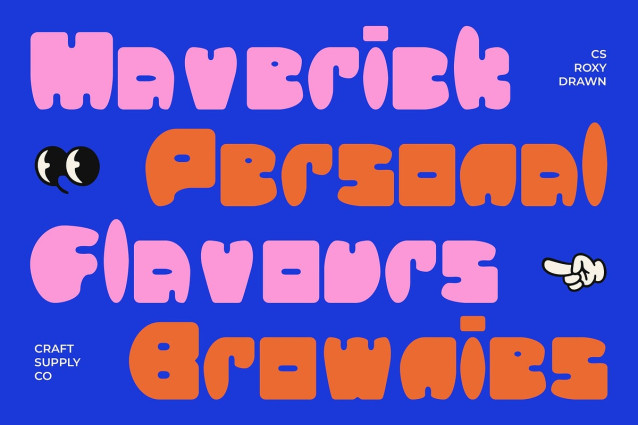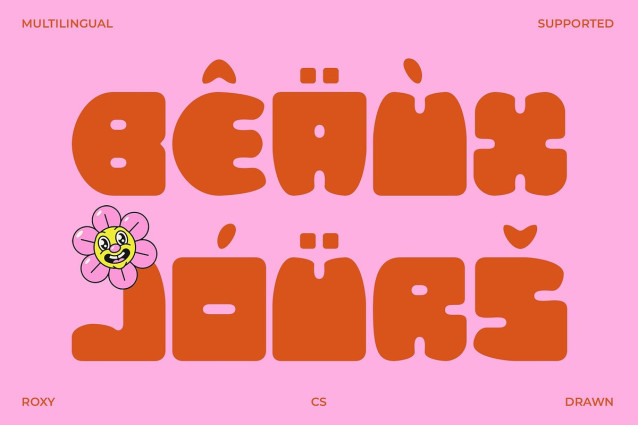
CS Roxy Drawn Font
CS Roxy Drawn Font is a bold display font that grabs attention with its confident, thick strokes and playful shapes. Its strong, impactful presence makes it perfect for designs that want to be noticed instantly, offering a fun and funky vibe that energizes any project.
Handcrafted Drawn Effect for Unique Character This font features a handcrafted drawn effect that gives each letter an organic, textured look. The subtle imperfections and sketchy lines add warmth and personality, making the font feel approachable and artistic. It’s an ideal choice for designs seeking a human touch and creative flair.
Versatile for Eye-Catching and Playful Designs Whether used in branding, posters, packaging, or social media graphics, this cheerful font combines boldness with charm. Its funky, dynamic style is perfect for projects that want to convey energy, fun, and originality, ensuring your message stands out in a crowded visual landscape.
Perfect for Creative, Youthful, and Energetic Projects From playful brand identities and vibrant event promotions to music posters and lifestyle products, this energetic font adds a lively and distinctive character. It’s designed for creatives who want a font that is both strong in impact and rich in handcrafted personality, helping to create memorable and engaging visuals.